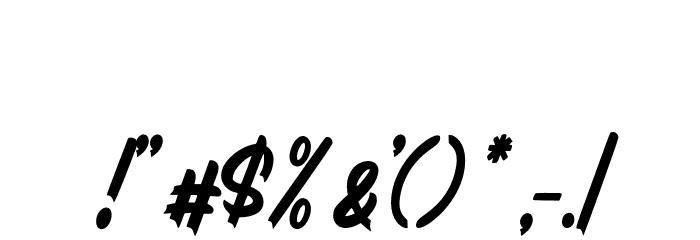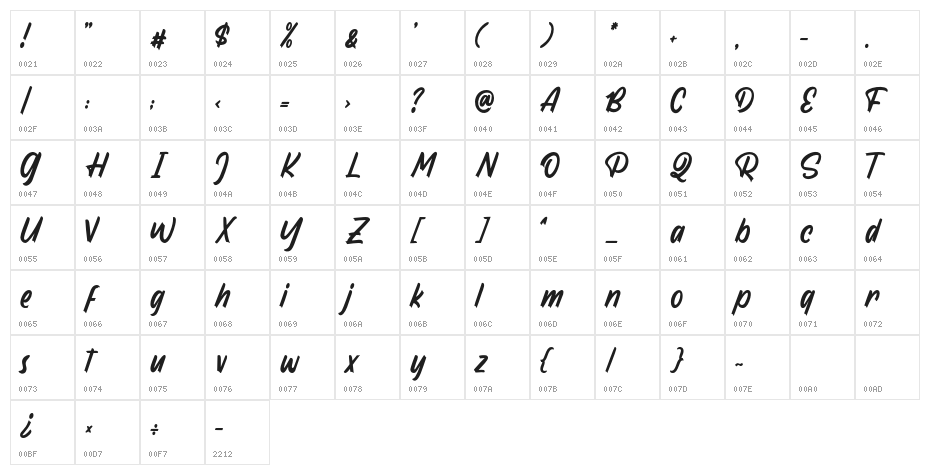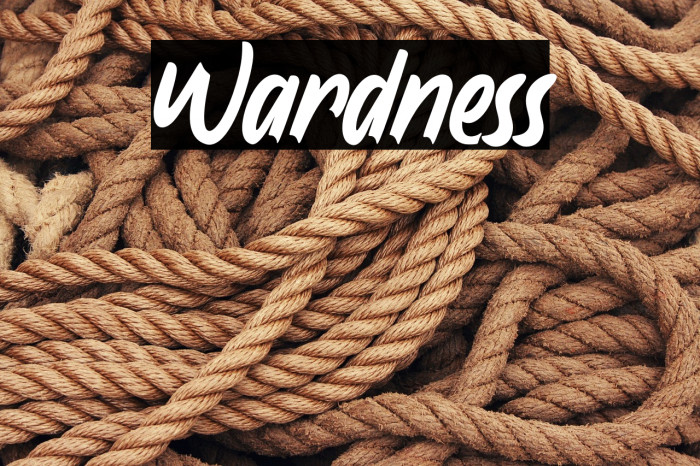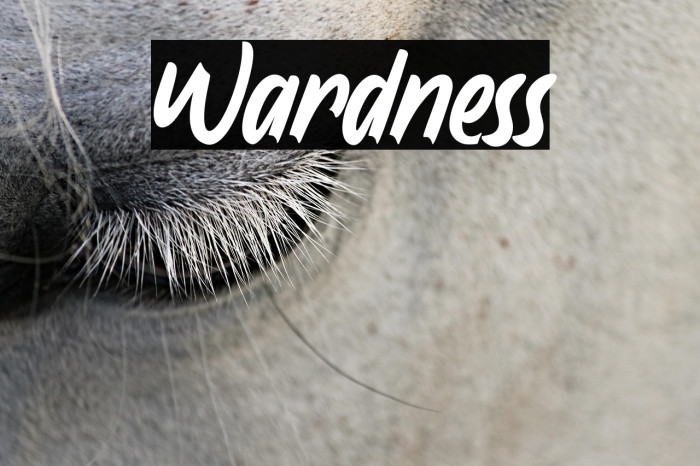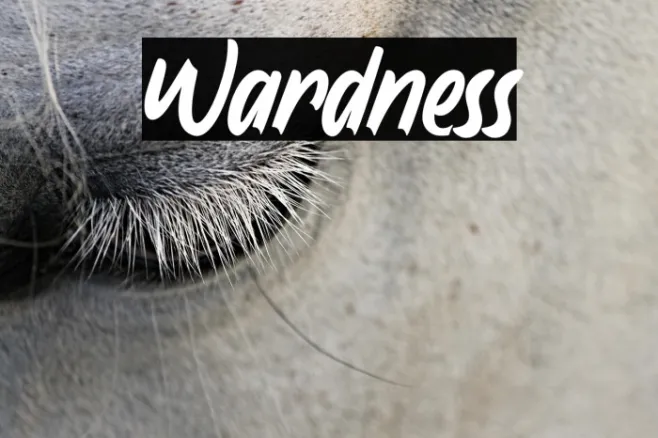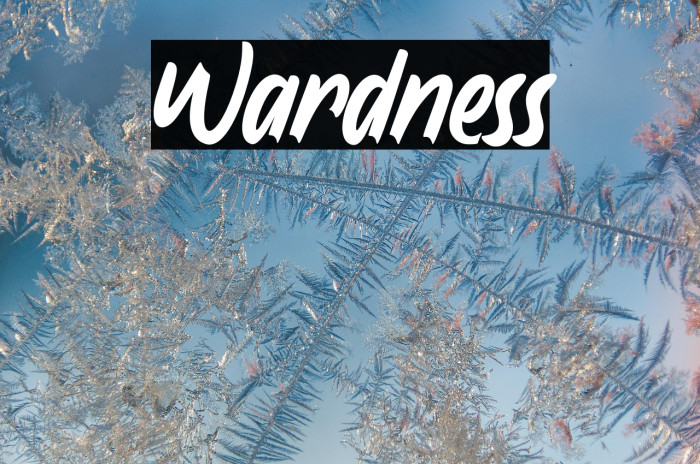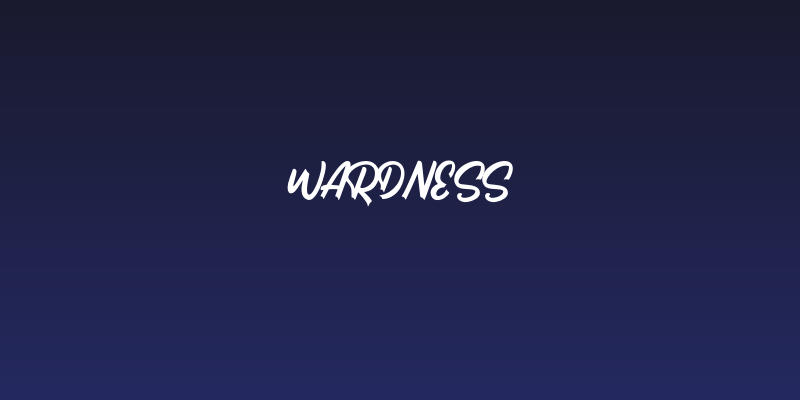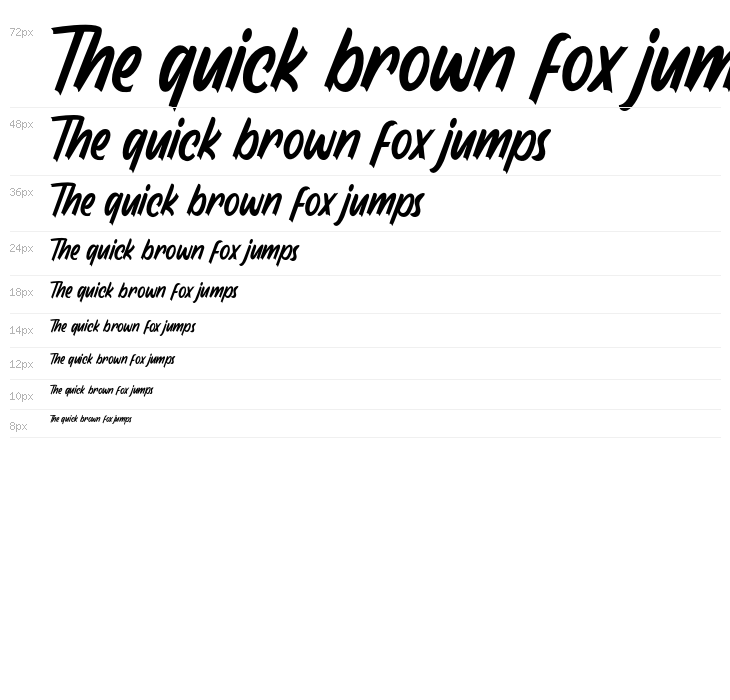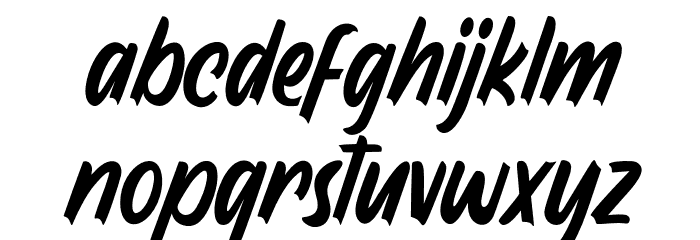
Wardness Font
Wardness Description
This font features a bold, dynamic script style with a strong sense of motion and fluidity. The uppercase letters are characterized by their sweeping curves and sharp angles, giving them a sense of elegance and flair. The lowercase letters maintain a consistent flow, complementing the uppercase with their rounded forms and smooth transitions. The numbers and special characters are designed to match the overall aesthetic, ensuring a cohesive look across all text. This font's bold strokes and high contrast make it stand out, while its script nature adds a touch of sophistication.